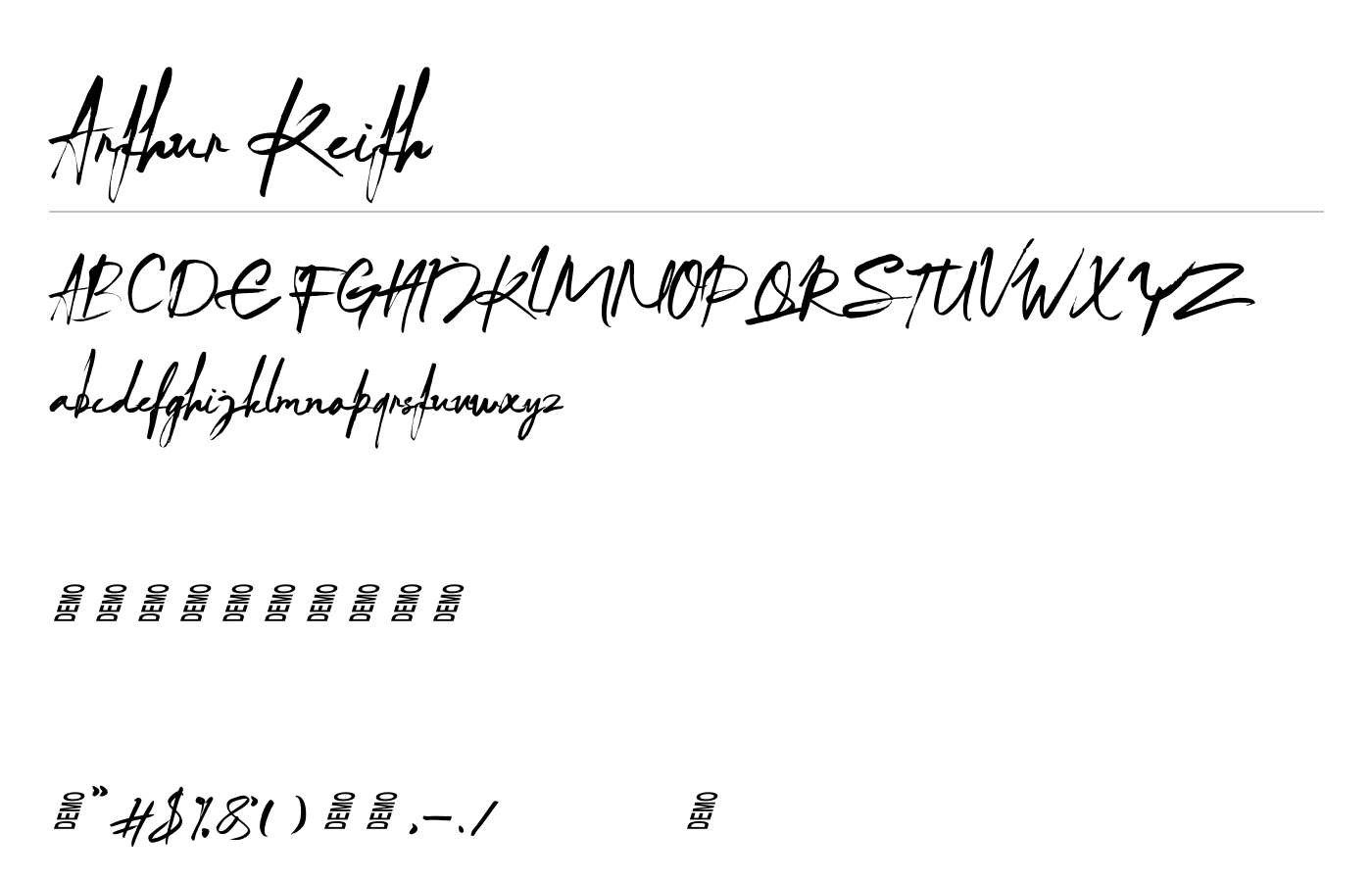
Arthur Keith is a distinctive handwritten script font that combines an expressive, brush-like stroke with a slightly chaotic, natural flow. Its slender and irregular letterforms convey a casual, artistic personality, making it ideal for creative branding, personal projects, and edgy editorial designs that seek a unique and dynamic touch. This font works best in headlines and logos where its energetic character can stand out, but it is less suited for long text due to its highly stylized nature.
Arthur Keith Font
About Arthur Keith Font